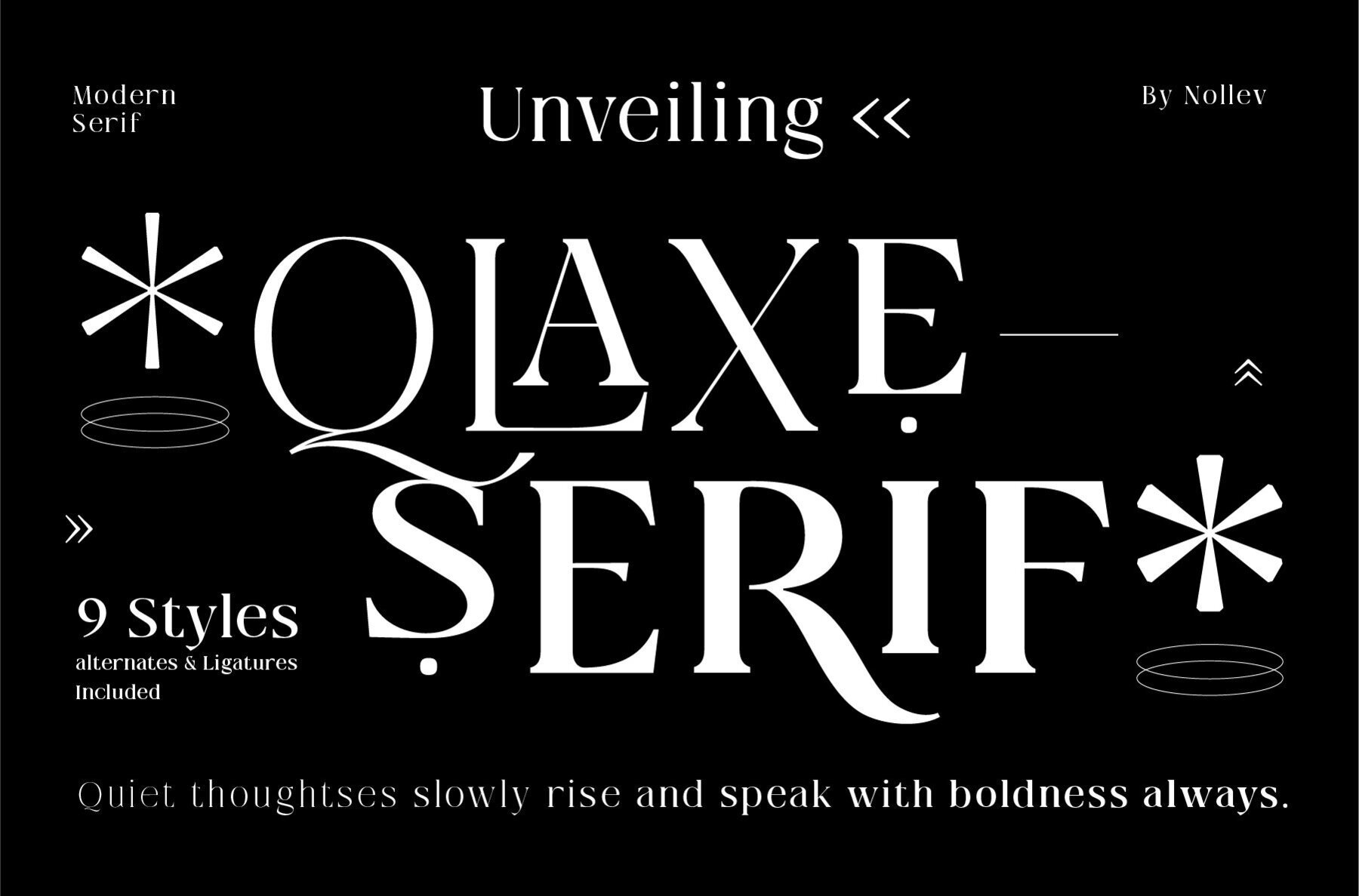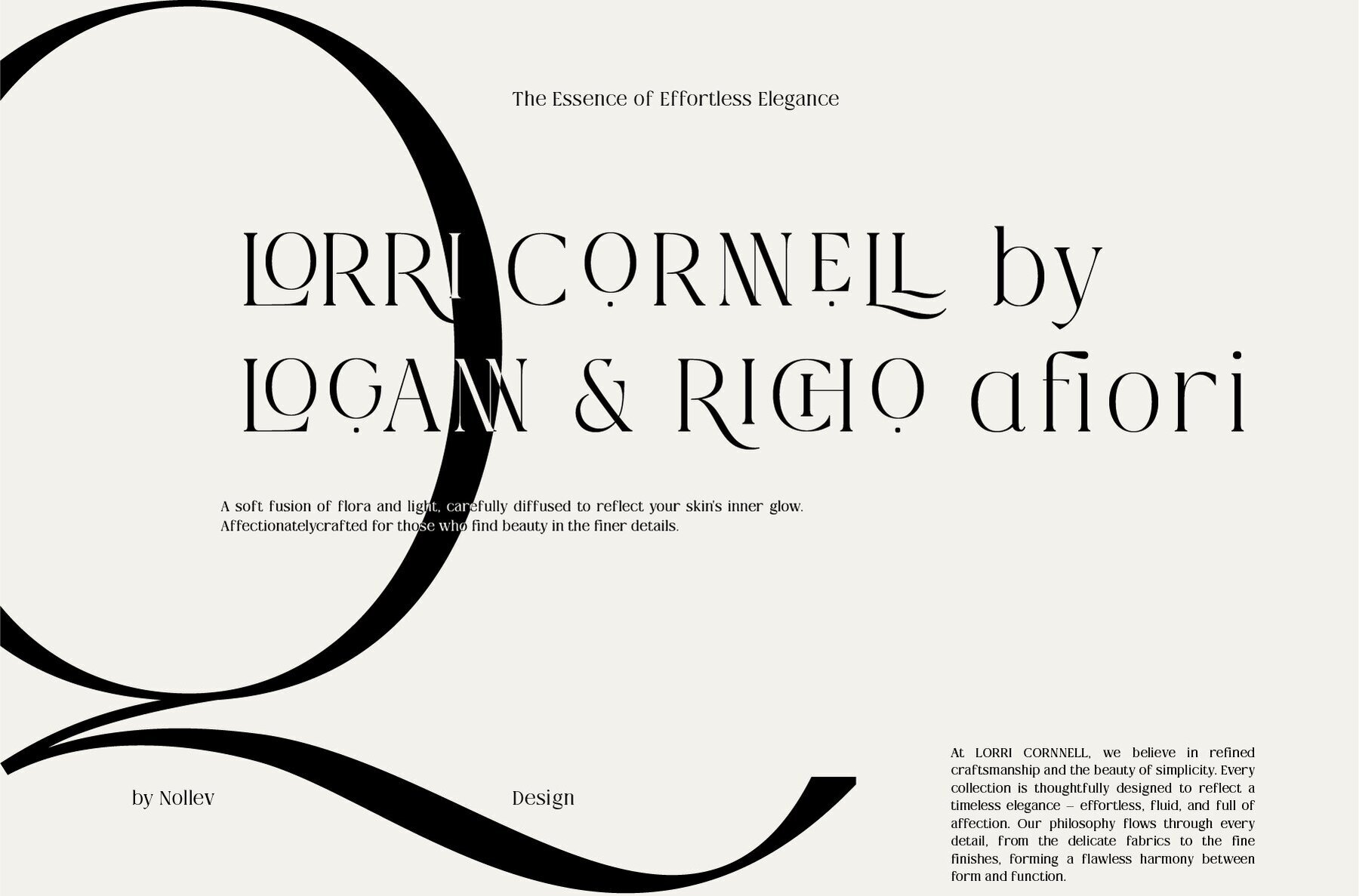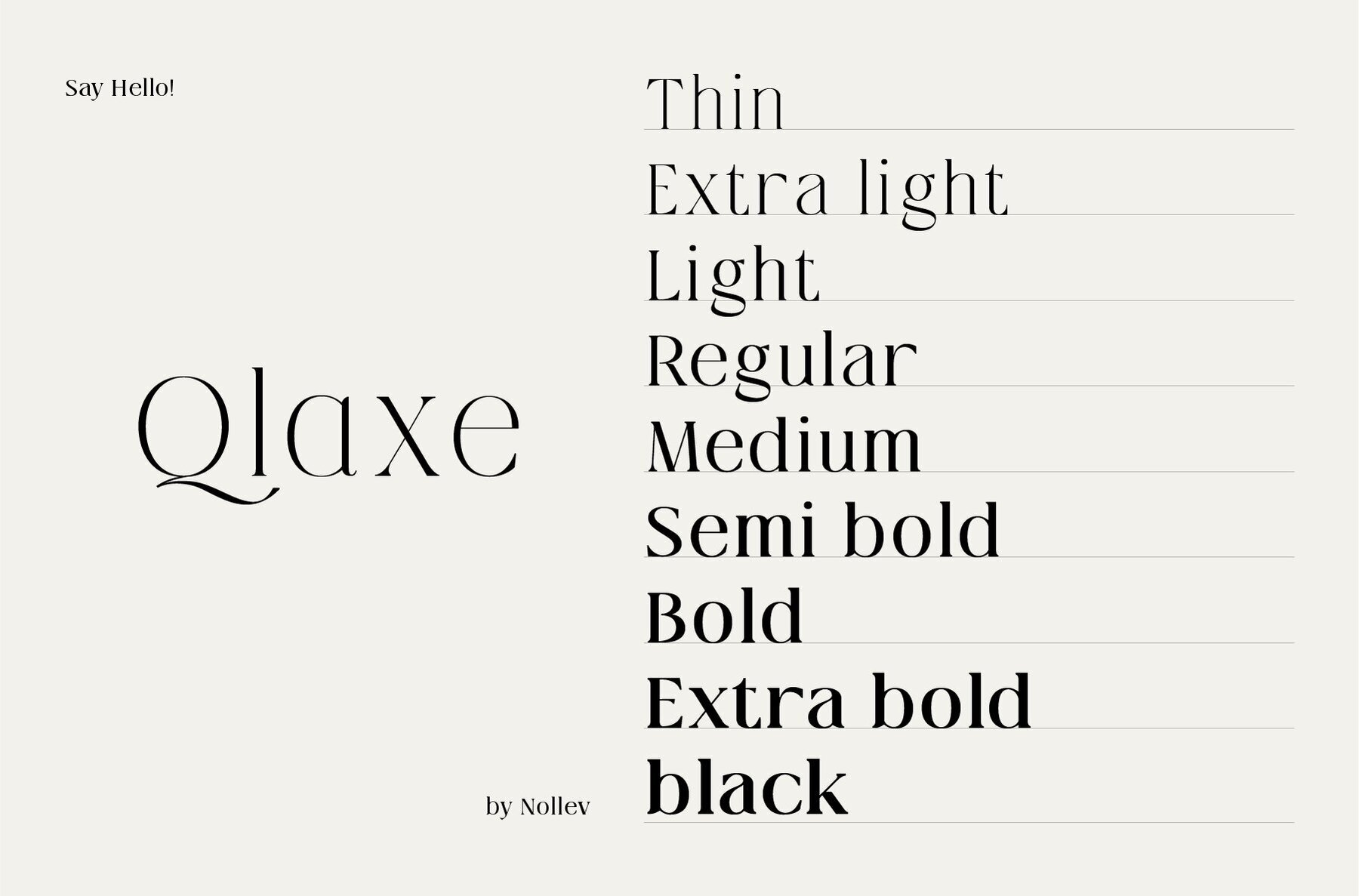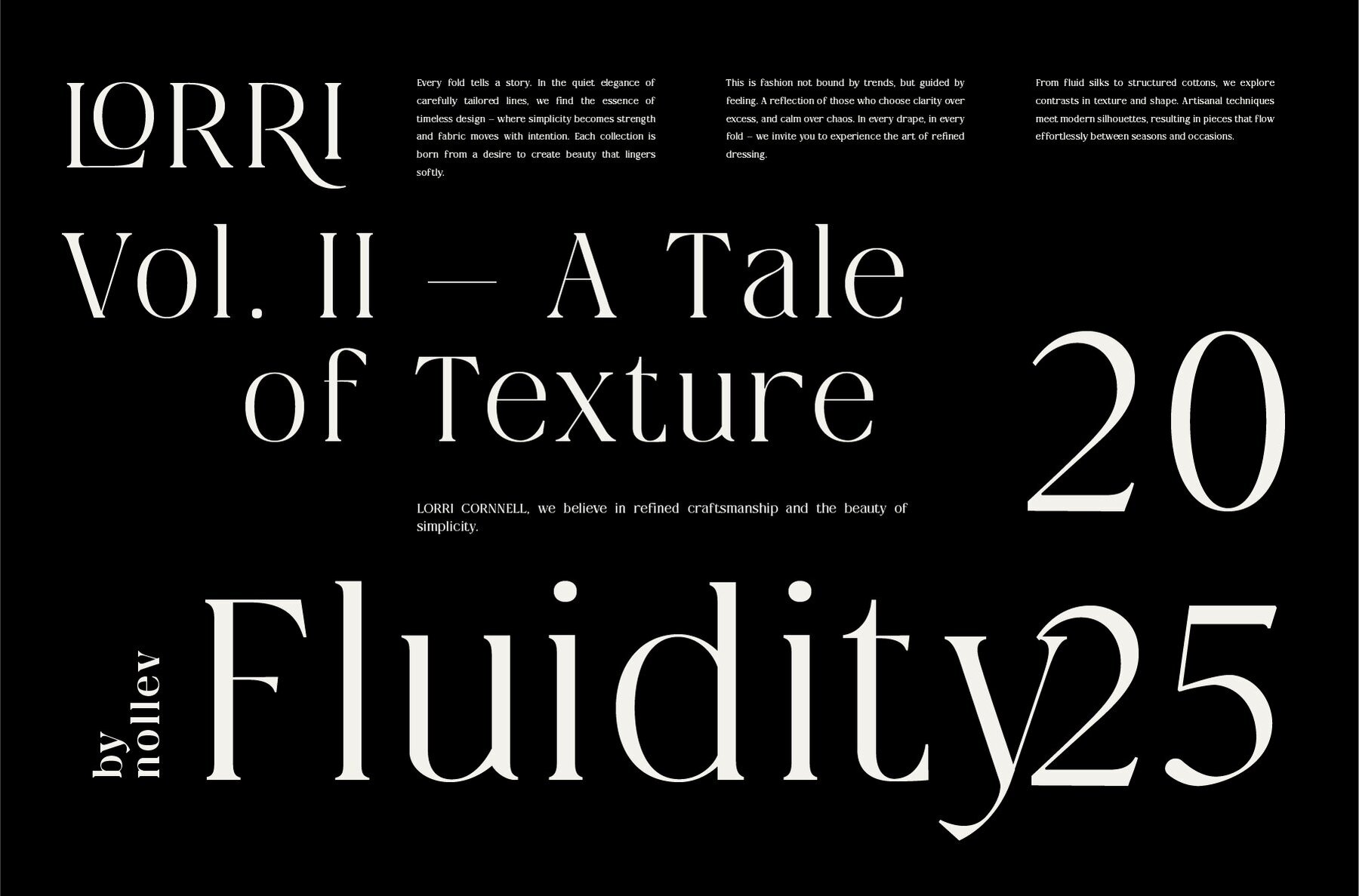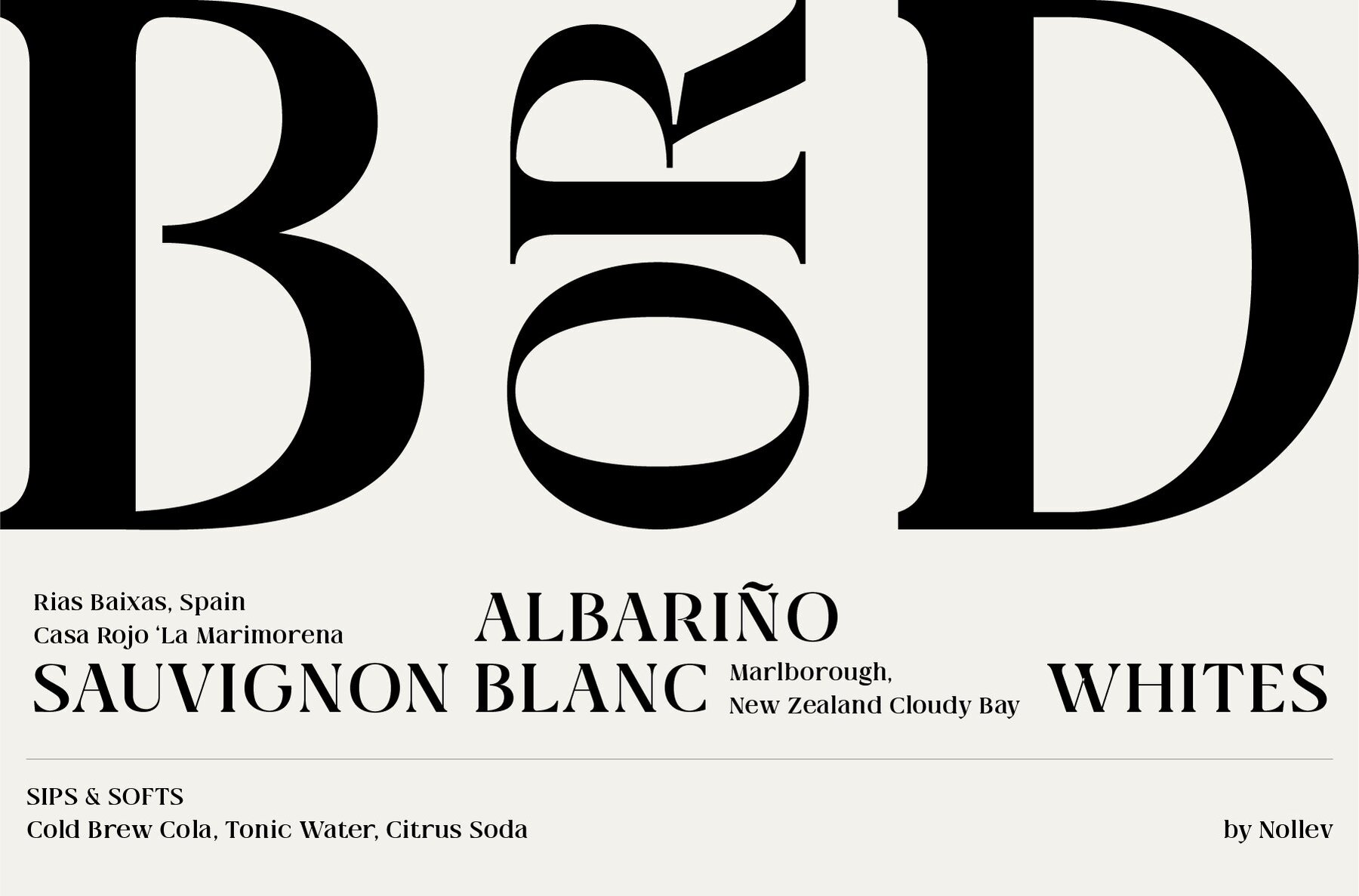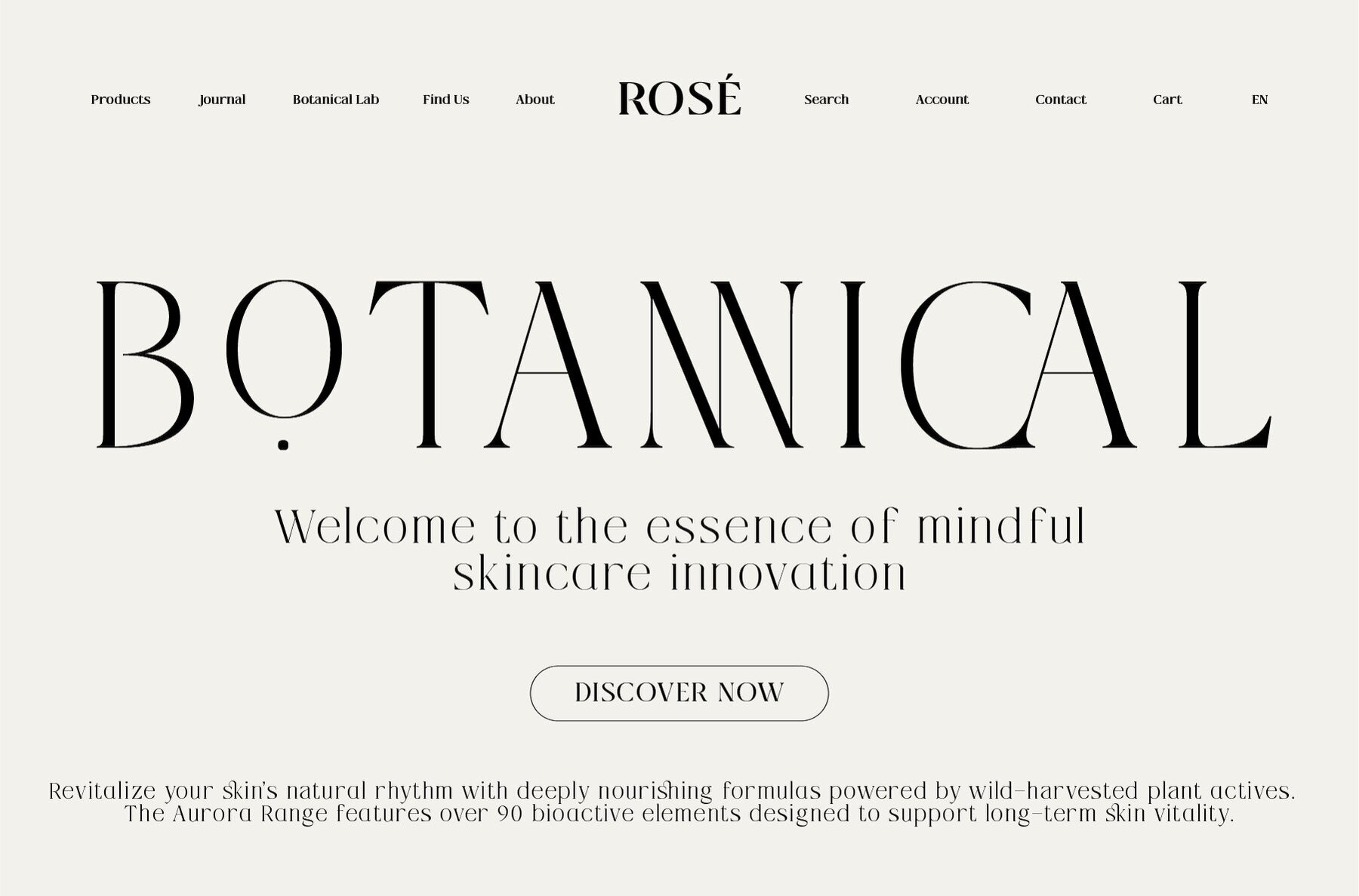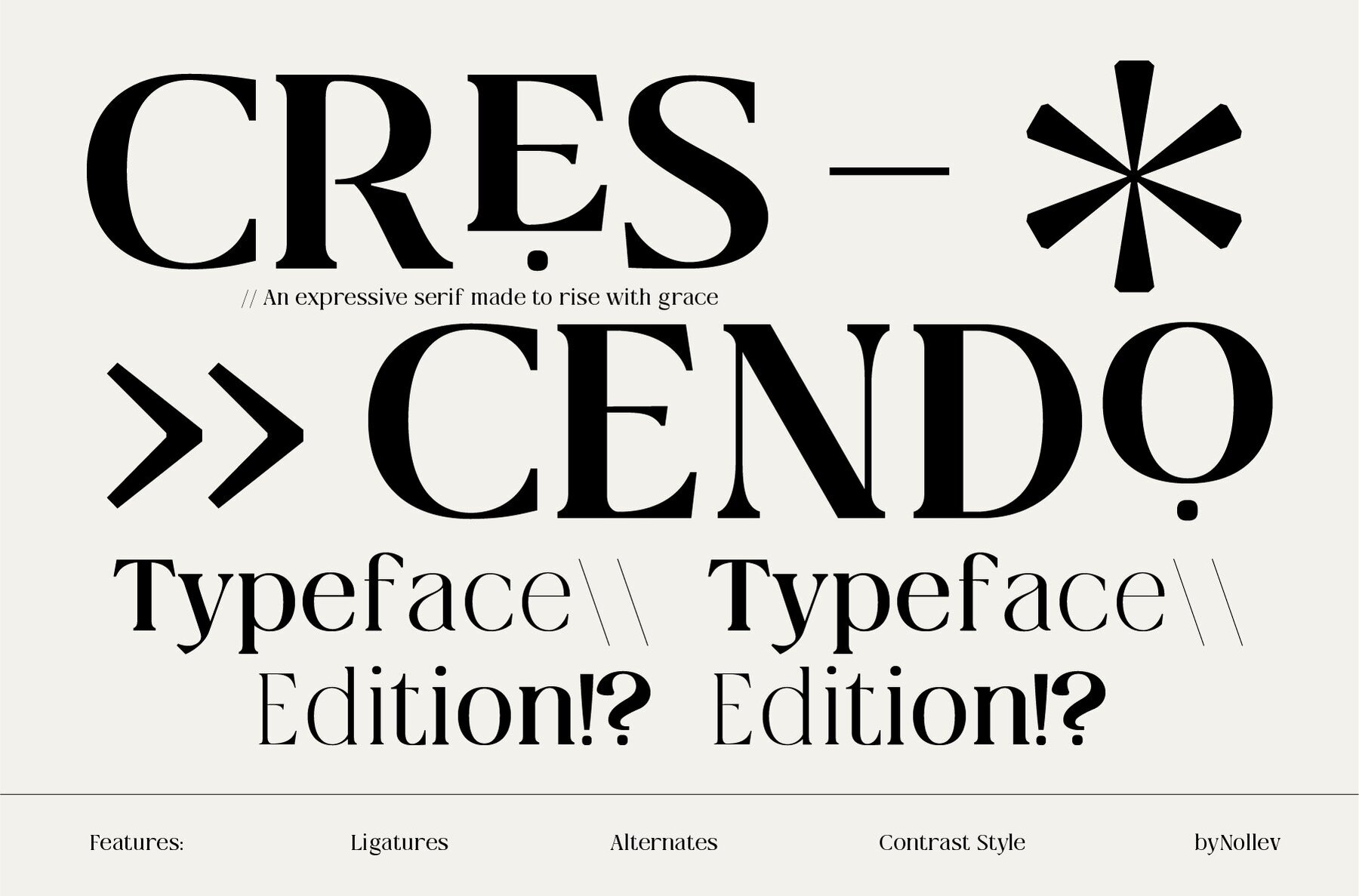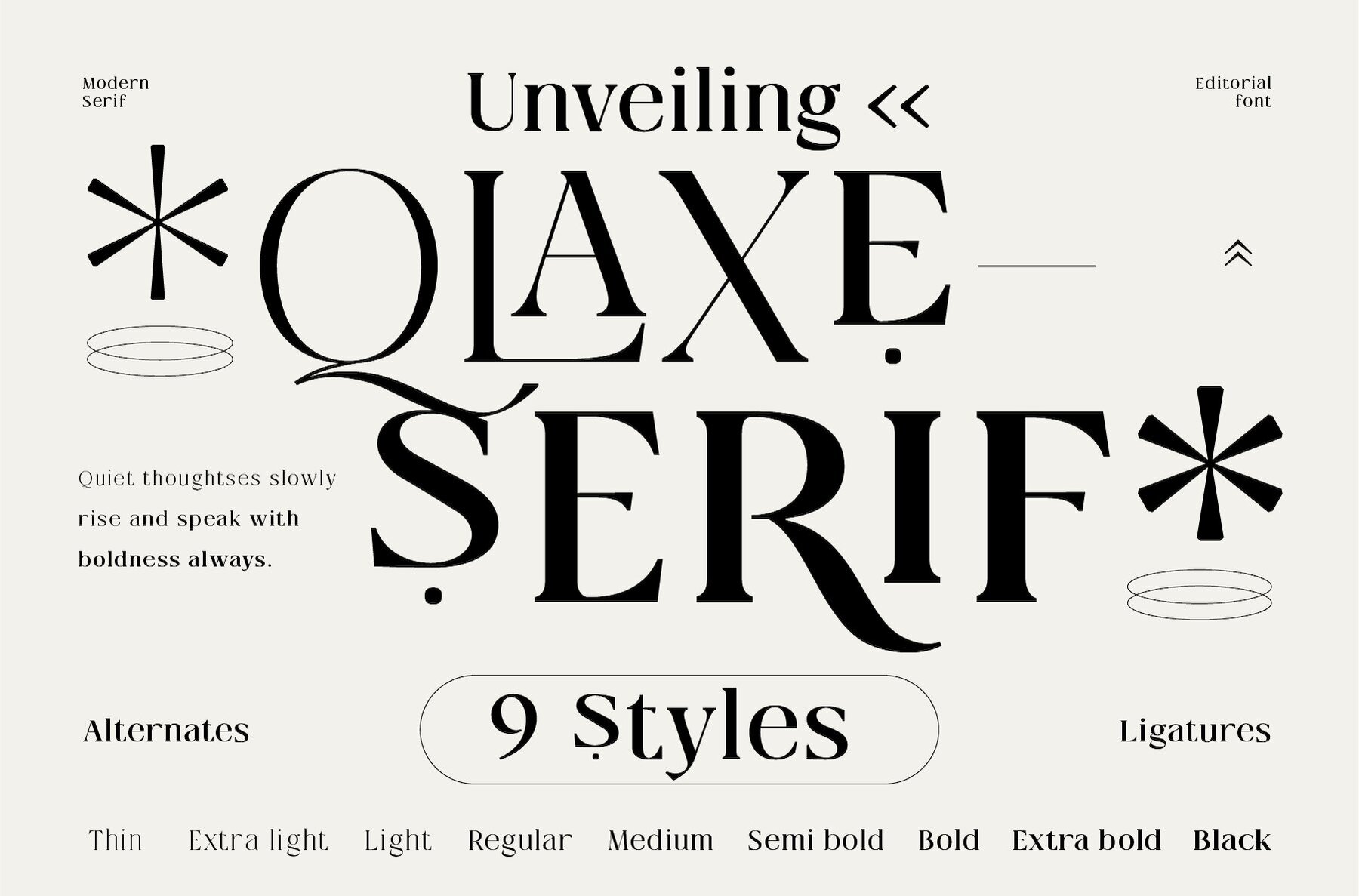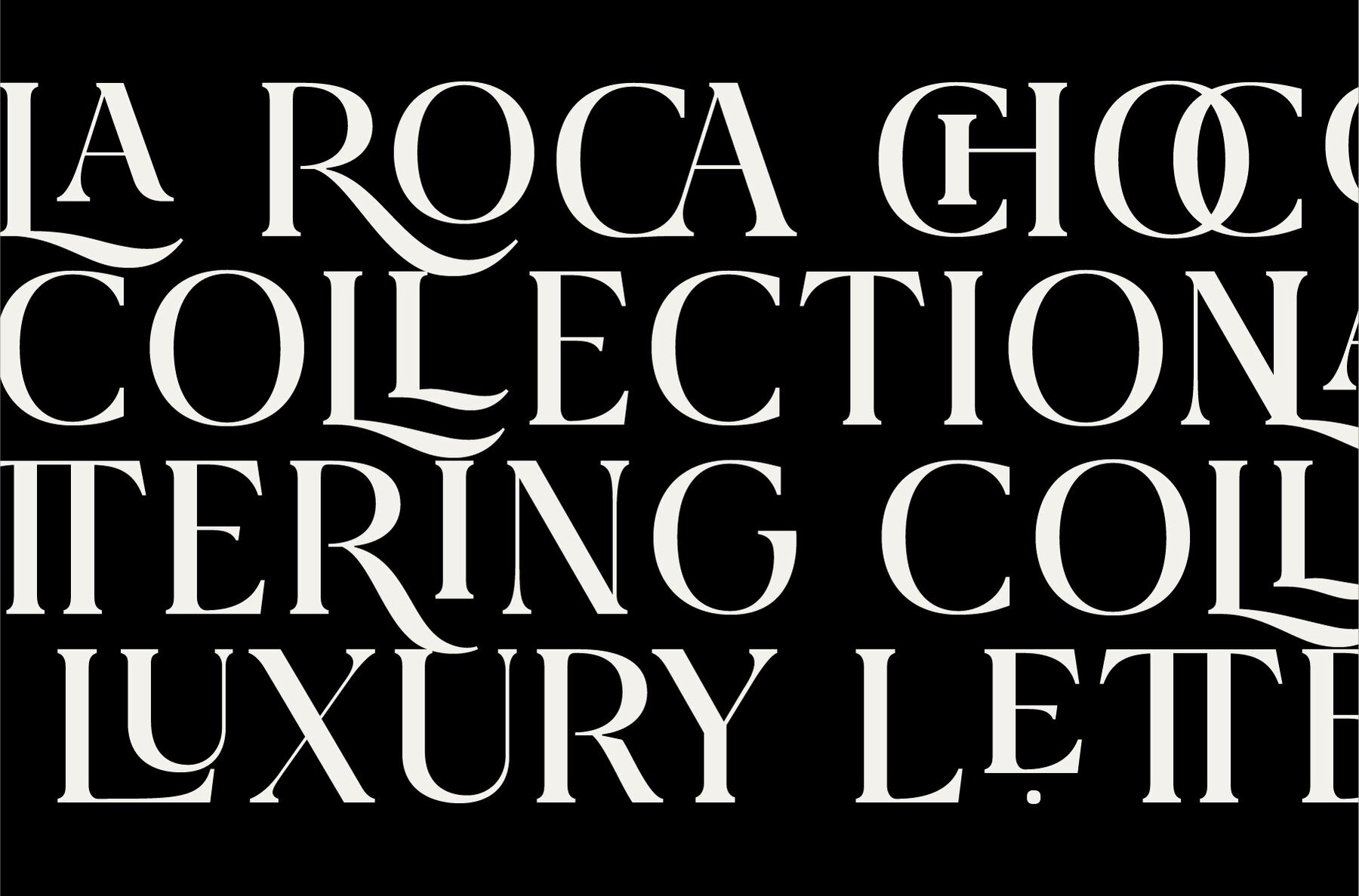
Qlaxe serif Font
Qlaxe Serif embodies the perfect union of elegance and functionality. This modern serif font family features beautifully crafted curves and offers nine versatile styles, including Thin, Extra Light, Light, Regular, Medium, SemiBold, Bold, Extra Bold, and Black. Each weight is designed for professional readability, making it an excellent choice for a variety of design projects. Ideal Applications: What’s Included: Licensing Details: The commercial license permits use for client work, company branding, commercial digital and print products, web designs (non-embedded), and brand-related social media. However, reselling, redistributing, or modifying and reselling the font is prohibited, as is its use in apps or embedded systems without an extended license.Qlaxe Serif: A Modern Typeface with Versatility